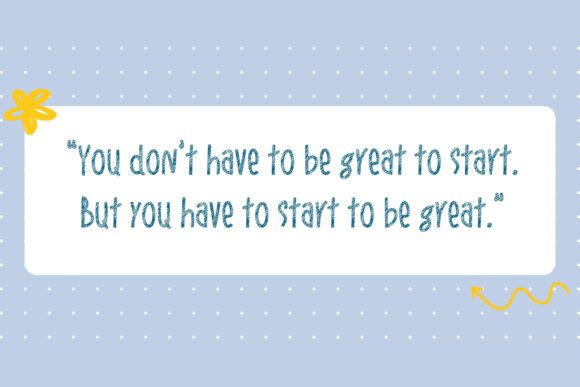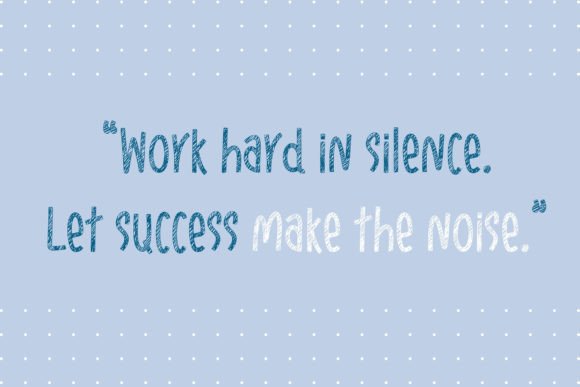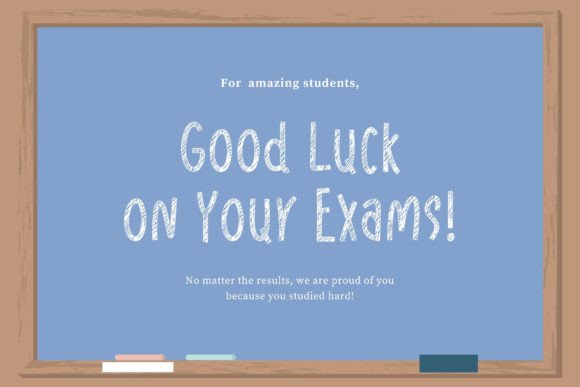
Introduction to School Hours Font
Introducing β€œSchool Hours,” the quintessential font for capturing the essence of the school environment.
With its playful serif sketch style, this font brings to life the nostalgic memories of school days Whether you’re creating instructional materials, embarking on DIY craft projects, personalizing names, or designing posters, β€œSchool Hours” is the perfect choice.
Key Features of School Hours Font
Why Choose School Hours Font?
School Hours Font offers exceptional quality and versatility, making it a valuable addition to your design toolkit. Whether you’re creating for personal projects or commercial use, School Hours Font delivers professional results.